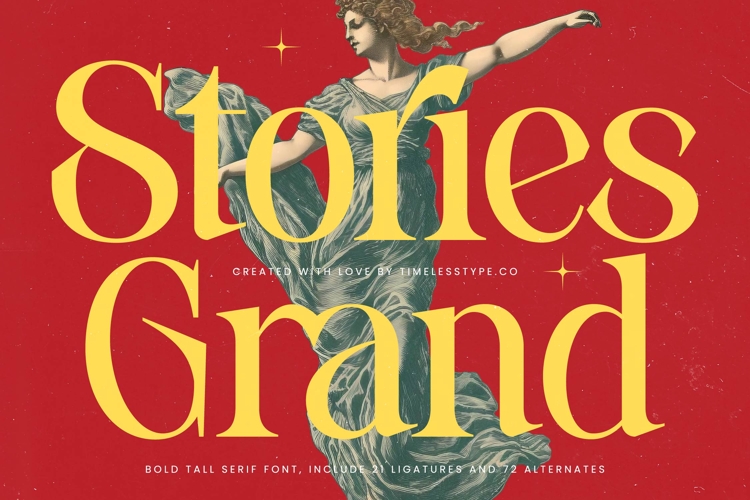
Stories Grand - Bold Tall Serif Font
Stories Grand is a bold tall serif font that exudes power, refinement, and timeless elegance. With its elongated proportions, sharp serifs, and graceful curves, this typeface delivers a majestic presence that feels both classical and modern. Designed with 21 ligatures and 72 alternates, Stories Grand gives designers a wide range of stylistic possibilities, ensuring text feels elevated, expressive, and unforgettable. Its combination of boldness and height makes it especially impactful in projects that demand authority and sophistication.
This font is crafted to shine in headline typography, where its tall forms and commanding shapes immediately draw attention across posters, banners, and editorial layouts. In magazine covers, book titles, and high-end editorials, Stories Grand enhances layouts with a sense of grandeur, making typography the centerpiece of design. For branding and logo design, the font projects exclusivity and prestige, making it a perfect choice for luxury brands, boutique businesses, and cultural institutions aiming to establish strong, memorable identities.
Stories Grand also performs beautifully in packaging design, particularly for fine wines, perfumes, cosmetics, and artisanal products where elegance and strength must coexist. In advertising campaigns, film posters, and event promotions, its tall proportions and refined alternates create a dramatic effect that enhances storytelling. For digital applications, such as websites, social media, and promotional graphics, Stories Grand delivers impact and timeless style, ensuring every design stands out with clarity and sophistication.
Its versatility extends to wedding invitations, certificates, and formal event branding, where grandeur and elegance are essential. With multilingual support, Stories Grand adapts effortlessly to international projects, making it a global tool for refined design.
Ultimately, Stories Grand is more than just a serif font—it is a visual statement of strength and beauty. Whether used for headlines, editorials, branding, packaging, advertising, or digital design, it ensures every project carries an air of authority, elegance, and unforgettable charm.